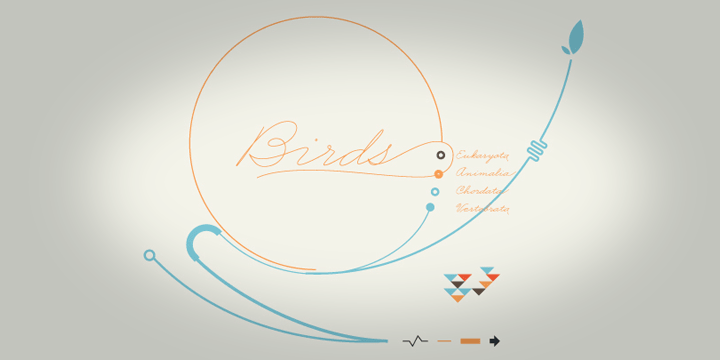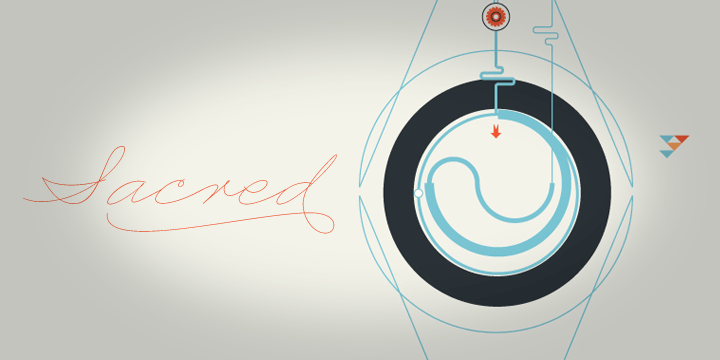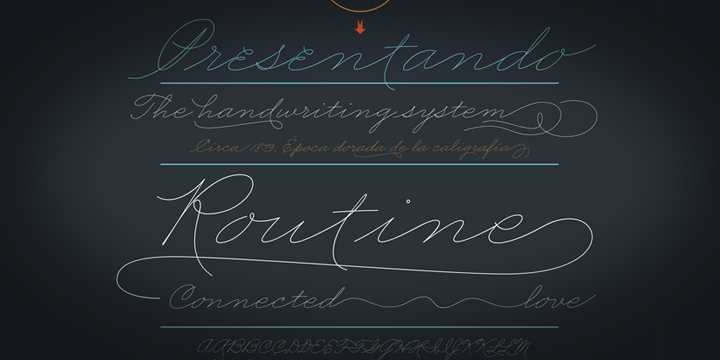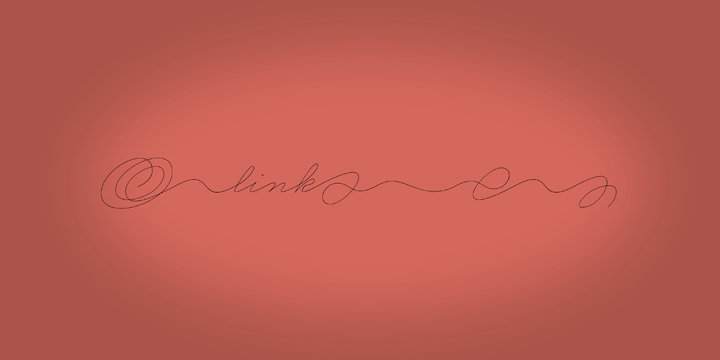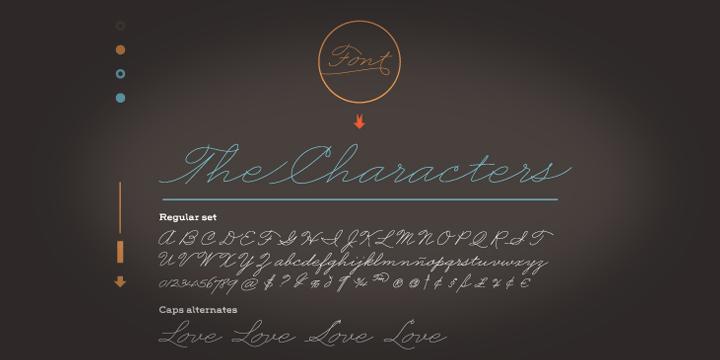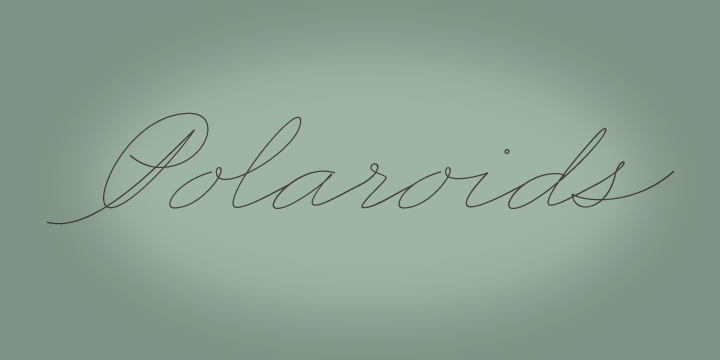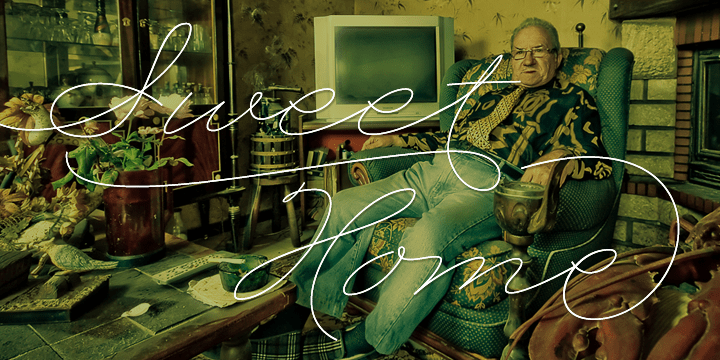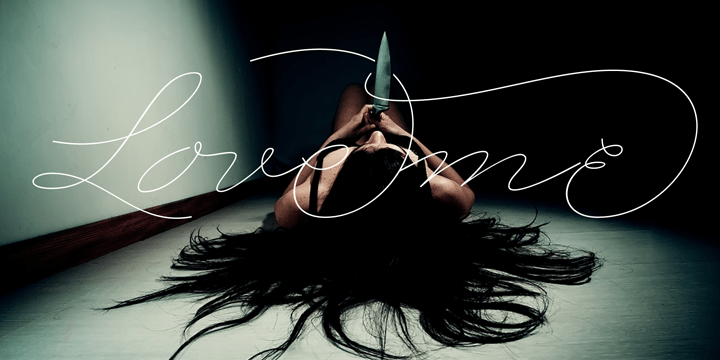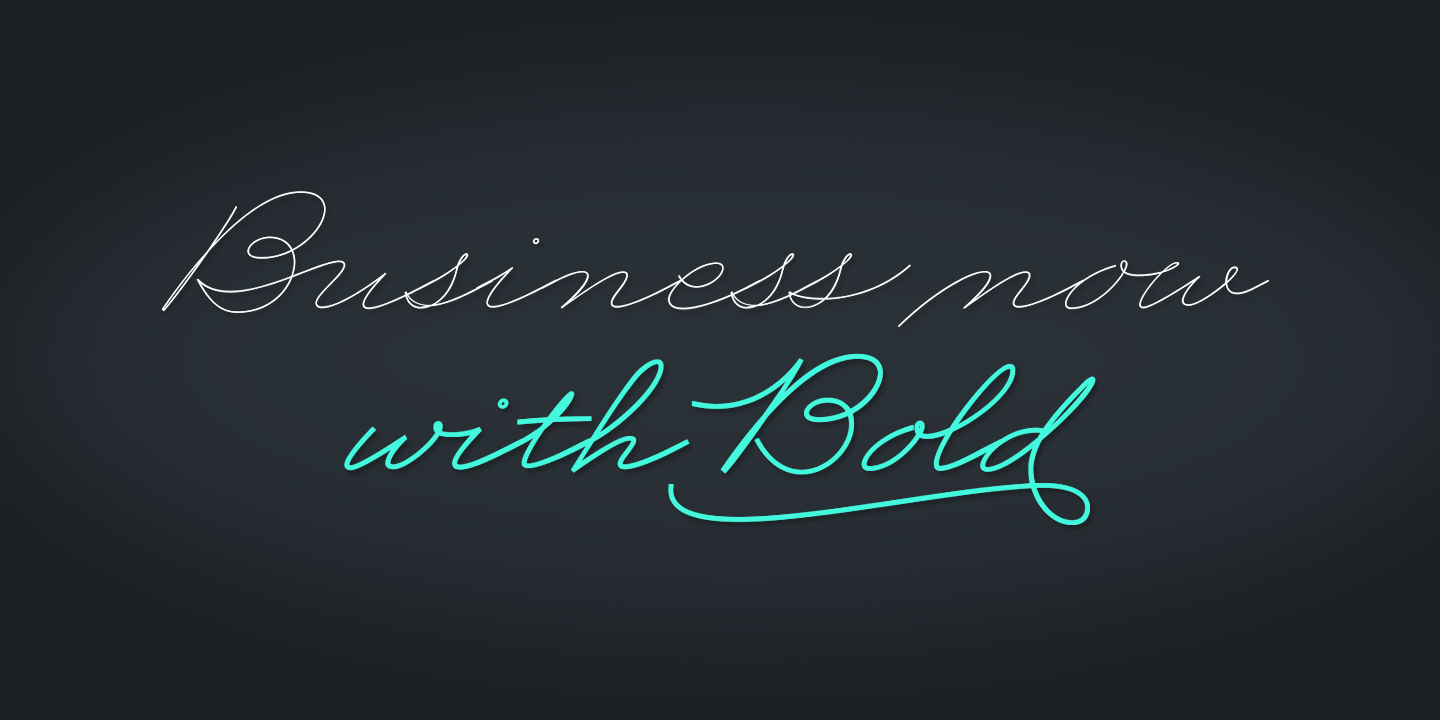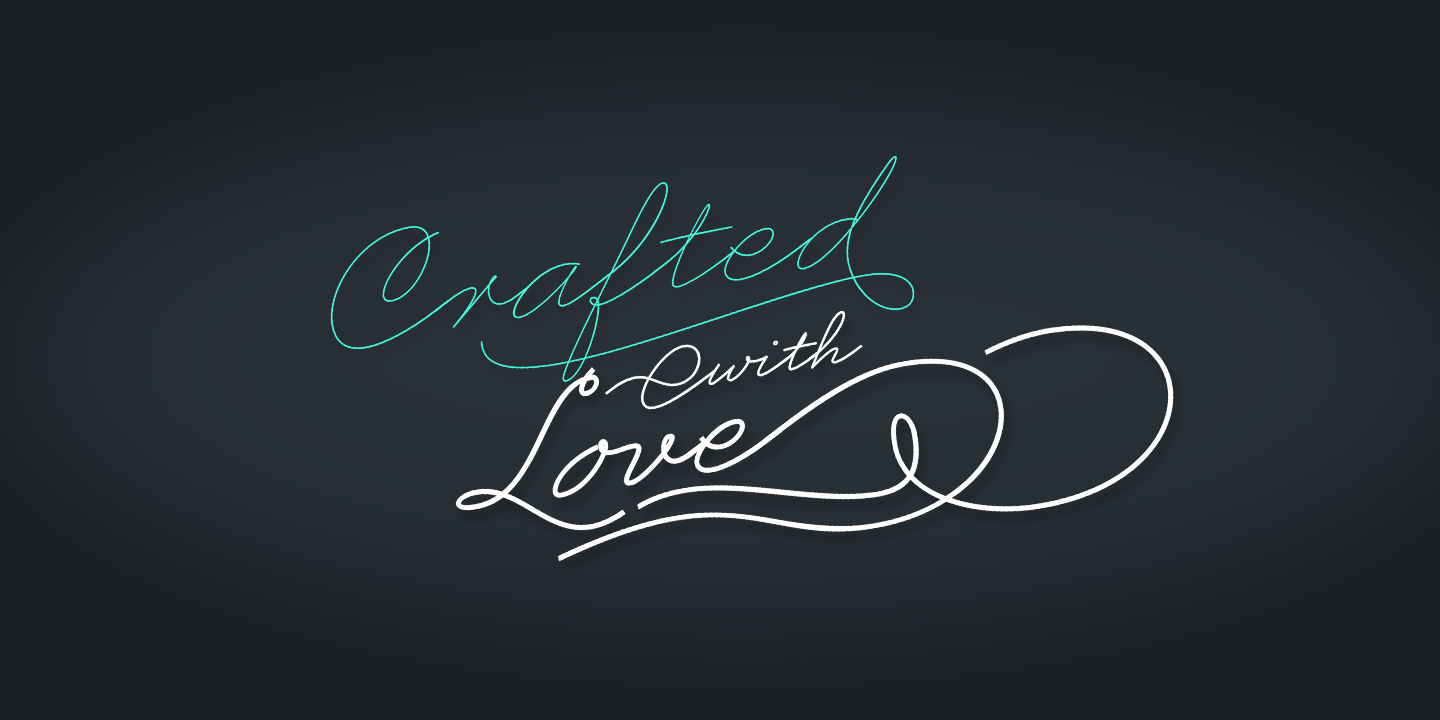
Business Penmanship
Business Penmanship is an ode to the business handwriting from the era penmanship was a highly-valued part of business education and practice.?
In the early 1800s, Platt Rogers Spencer (1800-1864) created what would become the most widely accepted and prized cursive writing method used in business. Before the American Civil War, Spencer was the undisputed king of handwriting. He was also an outspoken supporter of American business education. By the late 1800s business education included some focus on penmanship, and there were many colleges that specialized in it. One of the most influential penmanship schools was founded by Charles Paxton Zaner and his partner E. W. Bloser. Later on, in the early 1900s Austin Palmer introduced the Palmer Method of business penmanship, and it soon became the most popular handwriting system in the United States.?
Business Penmanship is a single feature-rich font that includes over 1100 characters, covering ligatures, alternates, a large set of beginning and ending extensions, as well as a wide range of Latin-based languages, including Turkish and the languages of Central and Eastern Europe and the Baltic region. To take advantage of all the OpenType features included in the font, please use within programs that support such advanced typography.